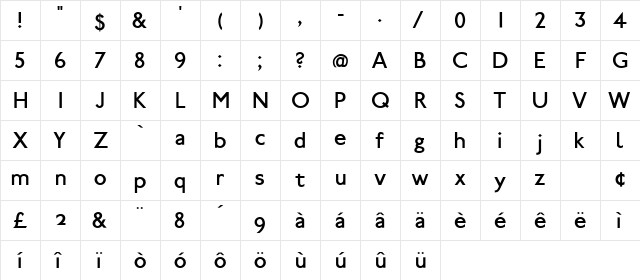
Paddington Plain Roman
Design Context for Paddington Plain Typeface
Paddington Plain is a composed and adaptable typeface that performs quietly and consistently across a wide range of design contexts.